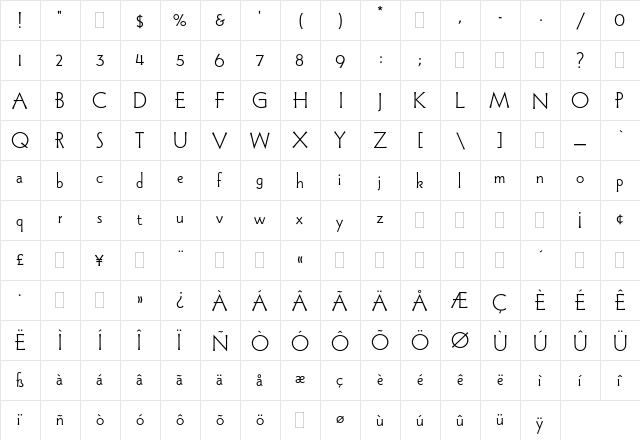
Wade Sans Light Plain
Design Context for Wade Sans Light Typeface
Wade Sans Light is a composed and adaptable typeface that performs quietly and consistently across a wide range of design contexts. The delicate stroke weight brings airiness and refinement to layouts.